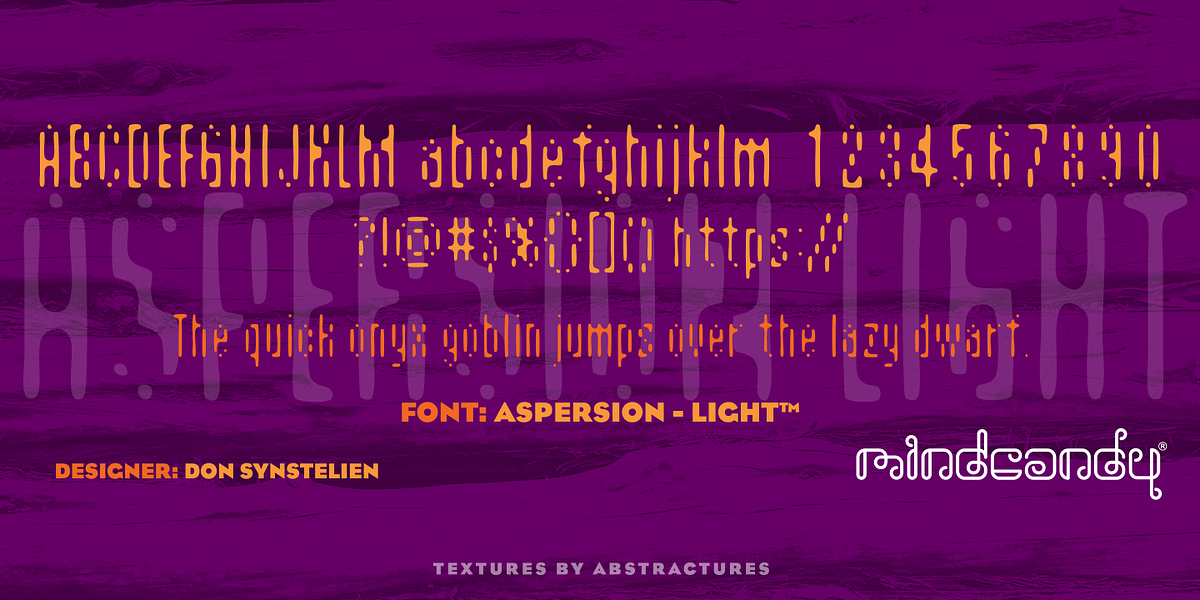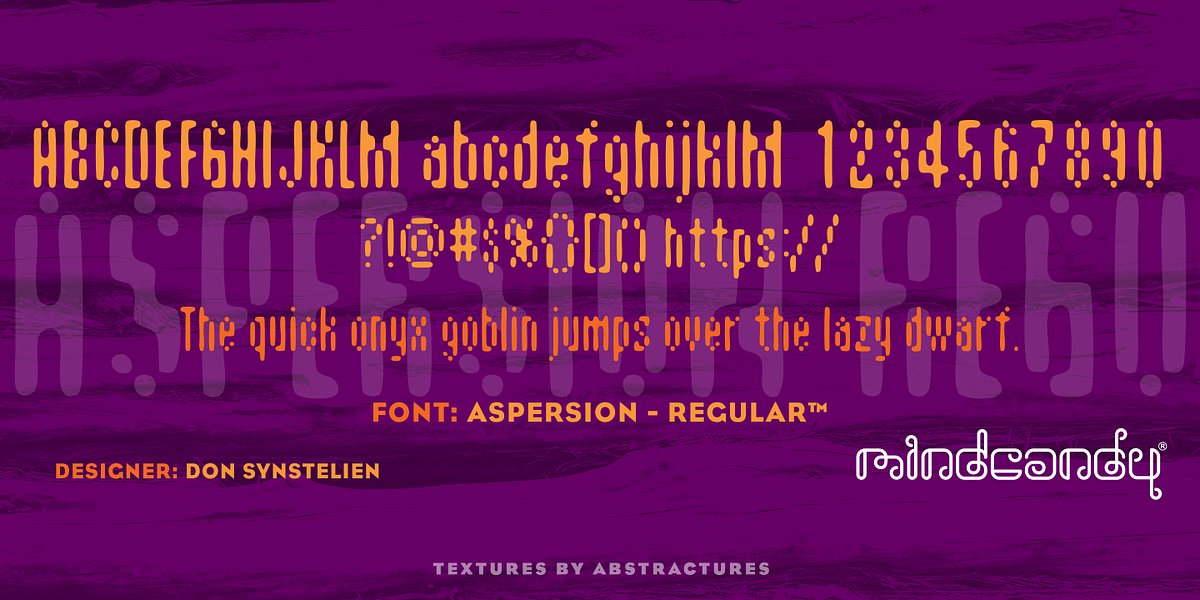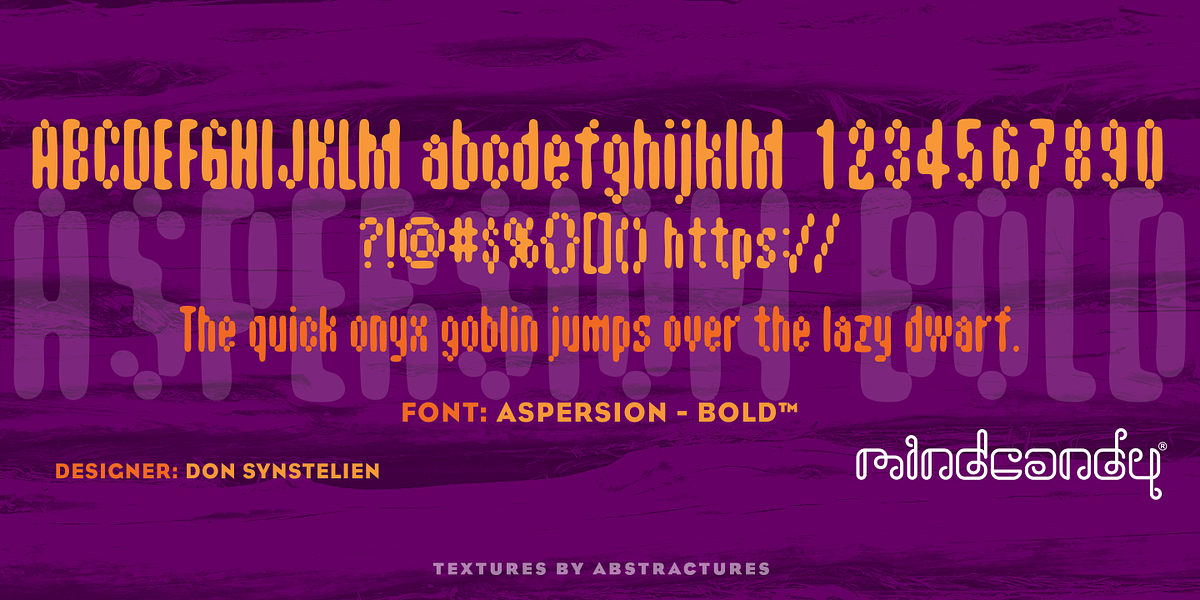
Aspersion™
Aspersion™ is a retro-inspired font family designed to evoke the visual aesthetic of early Macintosh computers. Its geometric sans-serif design features rounded shapes and a pixelated appearance, characteristic of the TrueType fonts prevalent in that era. The font comes in three weights: light, regular, and bold, making it versatile for various design applications.